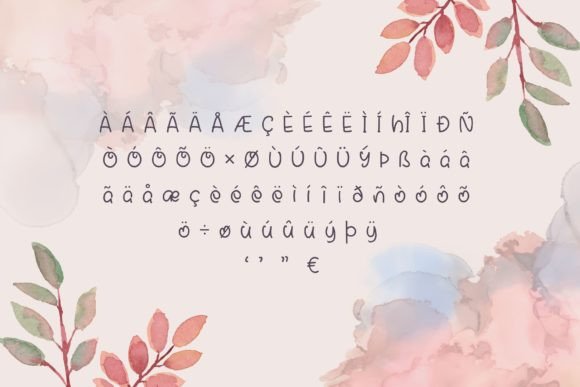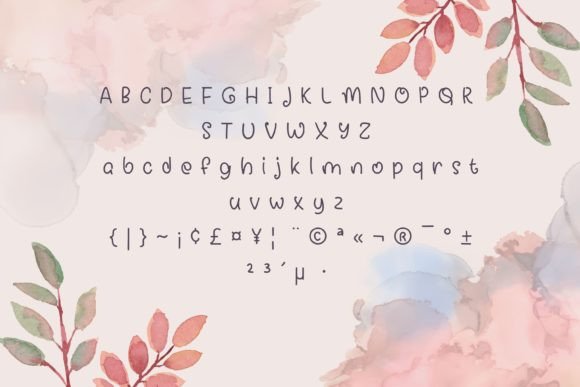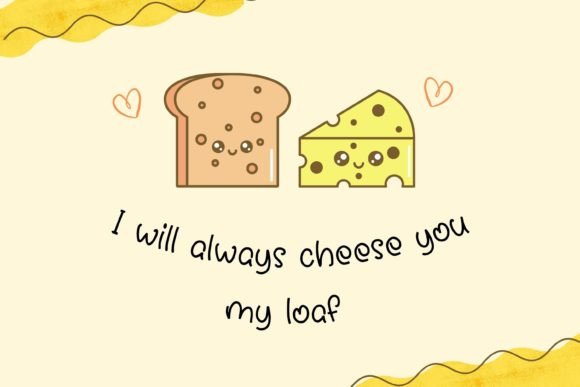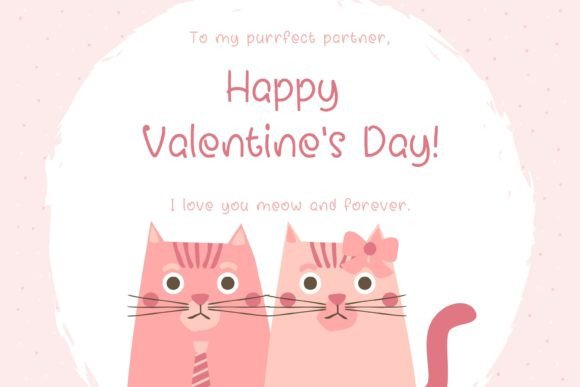
The Perfect Chalkboard Touch: Unveiling the Amalynos Font
As I sat in my cozy home office, surrounded by colorful markers and half-finished art projects, I stumbled upon the perfect idea for a new chalkboard quote. The words “Create Something Beautiful” flowed effortlessly onto the board, and I knew I needed a font that would make it truly special. That’s when I discovered the Amalynos Font, a charming handwritten font that captures the essence of a chalkboard’s authentic look.
This adorable font is more than just a pretty face – it’s a valuable tool for designers and creatives alike. Whether you’re crafting chalkboard quotes, teaching materials, or simply adding a touch of whimsy to your designs, Amalynos Font is the perfect companion. Its simple yet elegant design makes it versatile and easy to use, allowing you to focus on what really matters – bringing your ideas to life.
Key Features of Amalynos Font
- Font Family: Amalynos comes in 6 styles, including Regular, Italic, Bold, Bold Italic, Condensed, and Condensed Italic.
- Character Set: Supports a wide range of languages, including Latin, Cyrillic, and Greek alphabets, with over 800 glyphs.
- Resolution: Optimized for use at high resolutions, making it suitable for print and digital applications up to 1200 dpi.
- Unique Characteristics: Amalynos features a unique blend of modern and vintage elements, with intricate details and subtle flourishes that add a touch of elegance to any design.
- Font Size: Available in a range of sizes, from 12pt to 72pt, making it suitable for use in various applications, from body text to display headings.
Designer Review: Amalynos Font
Overall, I was quite excited to dive into the Amalynos font. With its modern, elegant aesthetic, I had high hopes for this font’s capabilities. ✨ One of the standout features is its excellent legibility, making it perfect for body text and even larger formats. The font’s sleek, rounded lines also work well for titles and headings.
Another advantage of Amalynos is its versatility. It comes in a range of weights, from light to bold, which allows for seamless integration into various design projects. The font’s subtle nuances in weight and style make it a great choice for creating visual hierarchy in your designs.
- ⚠️ Limited expressiveness in the font’s script and cursive styles. While they’re still readable, they may not be the best choice for creating a strong emotional connection with your audience.
- ⚠️ Some users may find the font’s rounded lines to be too subtle or bland in certain contexts. A more dramatic flair might be necessary to create a lasting impression.
While Amalynos isn’t perfect, it’s still a solid choice for designers looking for a clean, modern font. With its excellent legibility and versatility, it’s a great addition to any design toolkit. However, it may not be the best fit for projects requiring a more dramatic or expressive font.
Tips for Getting the Most Out of Amalynos Font
To get the most out of Amalynos Font, try the following:
- Experiment with different font sizes and combinations.
- Use Amalynos Font in conjunction with other fonts to create a unique look.
- Customize the font’s color and style to match your brand or design aesthetic.
Amalynos Font is ideal for:
- Designing logos and branding materials.
- Creating eye-catching titles and headings.
- Adding a touch of elegance to digital and print materials.
Alternatives to Amalynos Font for Designers
Montserrat is a modern sans-serif font designed by Julieta Ulanovsky. It is a great alternative for Amalynos Font when you need a clean, urban feel for your designs. Montserrat is more geometric and has a stronger structure than Amalynos, making it ideal for headings and titles.
Comparison: Montserrat is more geometric and structured, while Amalynos is more elegant and refined. Montserrat is also more suitable for digital displays.
Q: What is the character set and language support for the Amalynos Font?
The Amalynos Font includes a comprehensive character set with support for over 100 languages, including Latin, Cyrillic, Greek, and many others. It also includes various symbols, icons, and special characters for creative and design purposes.